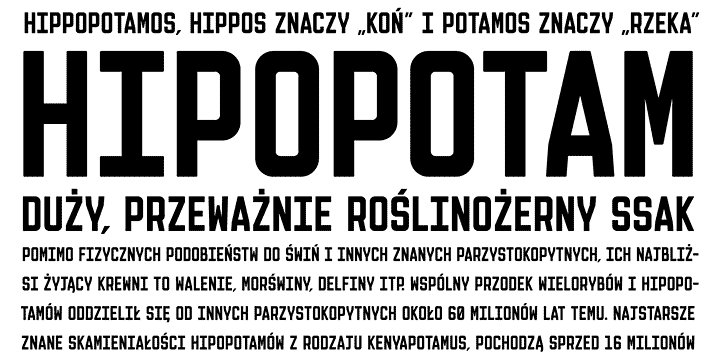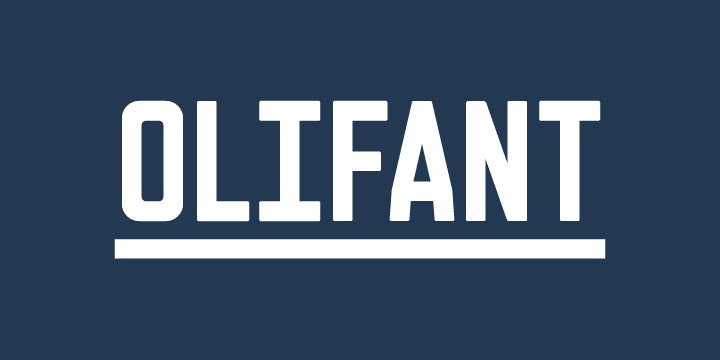
Olifant is a display sans font published by Hipopotam Studio.
Typeface originally designed as monospace (single standard width for all glyphs). We needed that for project where letters stood directly above each other. Eventually it become proportional and only digits have fixed width.